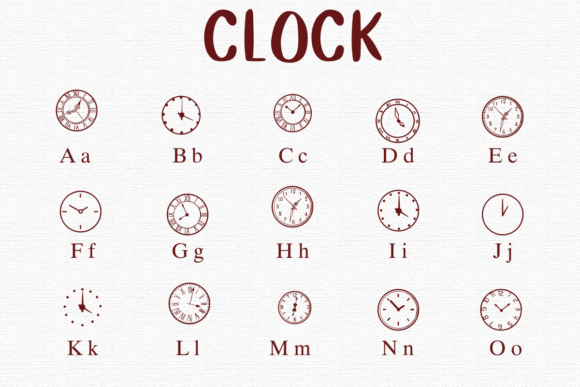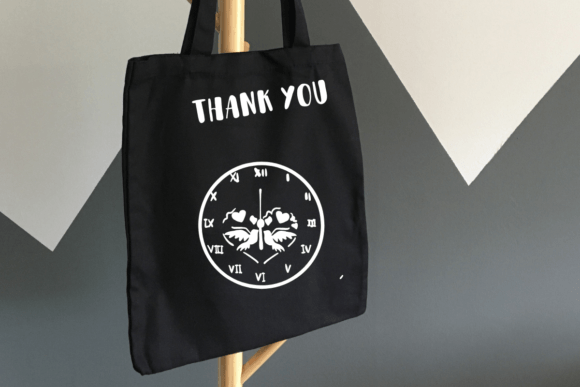
Clock Font
“Clock” is a fun dingbat font that features various wall clocks as its characters. Each letter or symbol is designed to look like a different style of clock you might find hanging on a wall. It’s a playful and creative way to add a time-themed twist to your designs or messages!